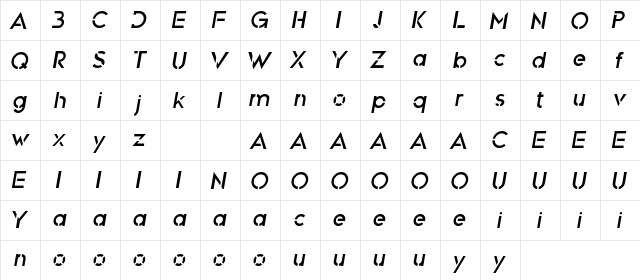
Myron Hector Demo Italic
| Foundry | Edric Studio |
| Designer | Muhamad Lukman Fauzi & Suci Anita |
Design Context for Myron Hector Demo Typeface
Myron Hector Demo takes a measured approach to typography — its balanced proportions and neutral character make it a reliable workhorse for both digital and print work. Its italic angle brings a sense of urgency and motion to the letterforms.